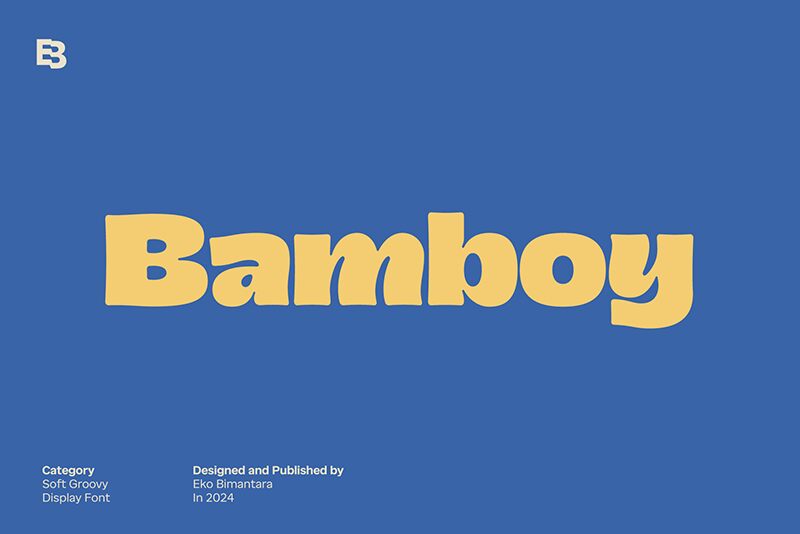
Bamboy Trial Condensed
Bamboy Condensed font by Eko Bimantara is a bold, groovy, display typeface with smooth, rounded corners. Its casual and friendly look draws inspiration from 70s retro style and pop culture visuals. A quirky spirit combined with fun letter shapes makes it apt for use in easy-going everyday designs that require a happy-go-lucky vibe.
This free display font is recommended for logos, packaging designs, t-shirt prints, titles and headlines in books or magazines. You can also apply it to posters and flyers for events such as music concerts or kids’ activities; restaurant menus; webpage graphics; social media posts etc.